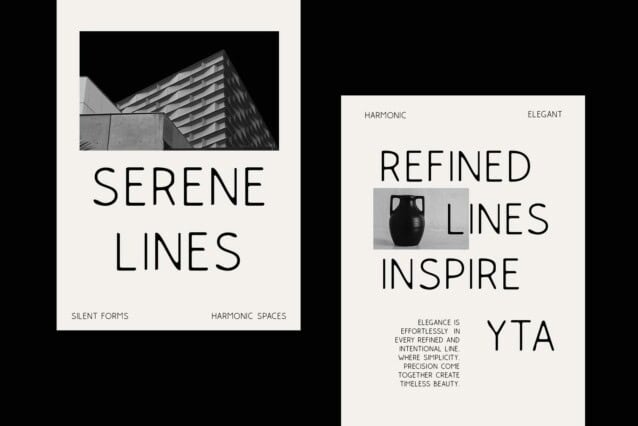
Rolves Blur Font
Rolves Blur Font is a modern sans-serif font with a clean, minimalist, and geometric form, ensuring a sleek and contemporary look. Its sharp yet balanced letterforms maintain clarity while embracing a sense of precision and symmetry, making it a versatile choice for various design applications.